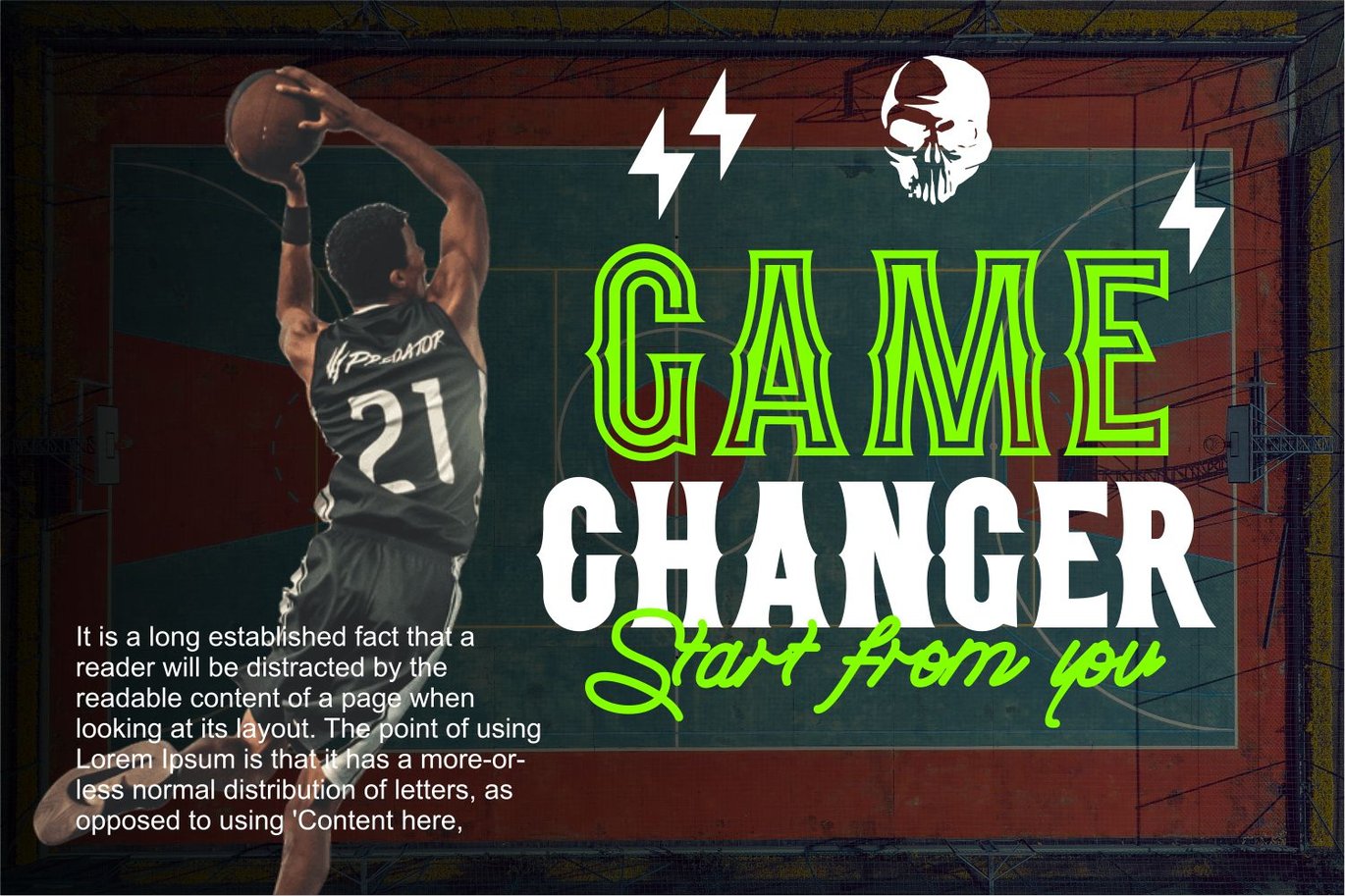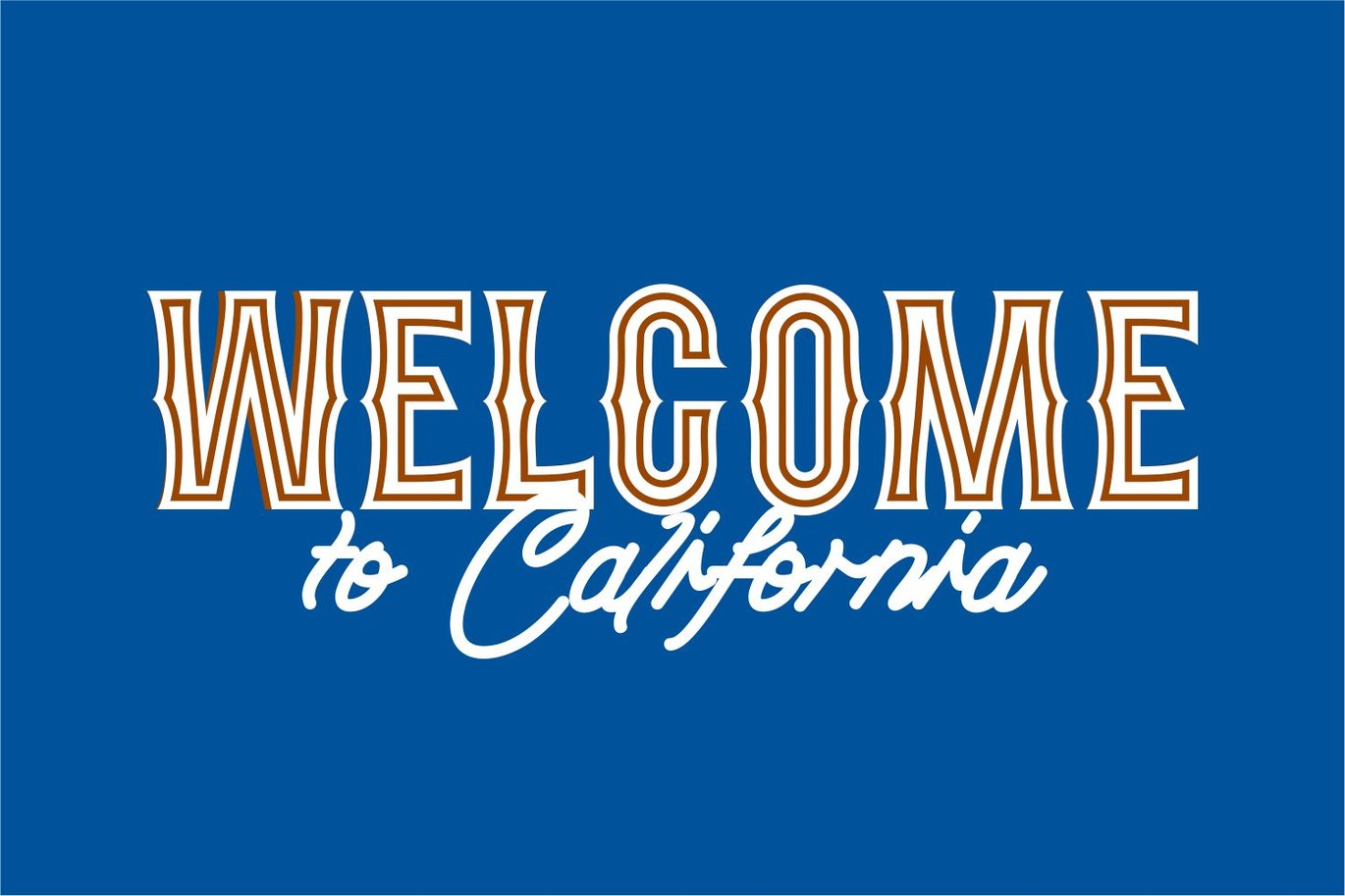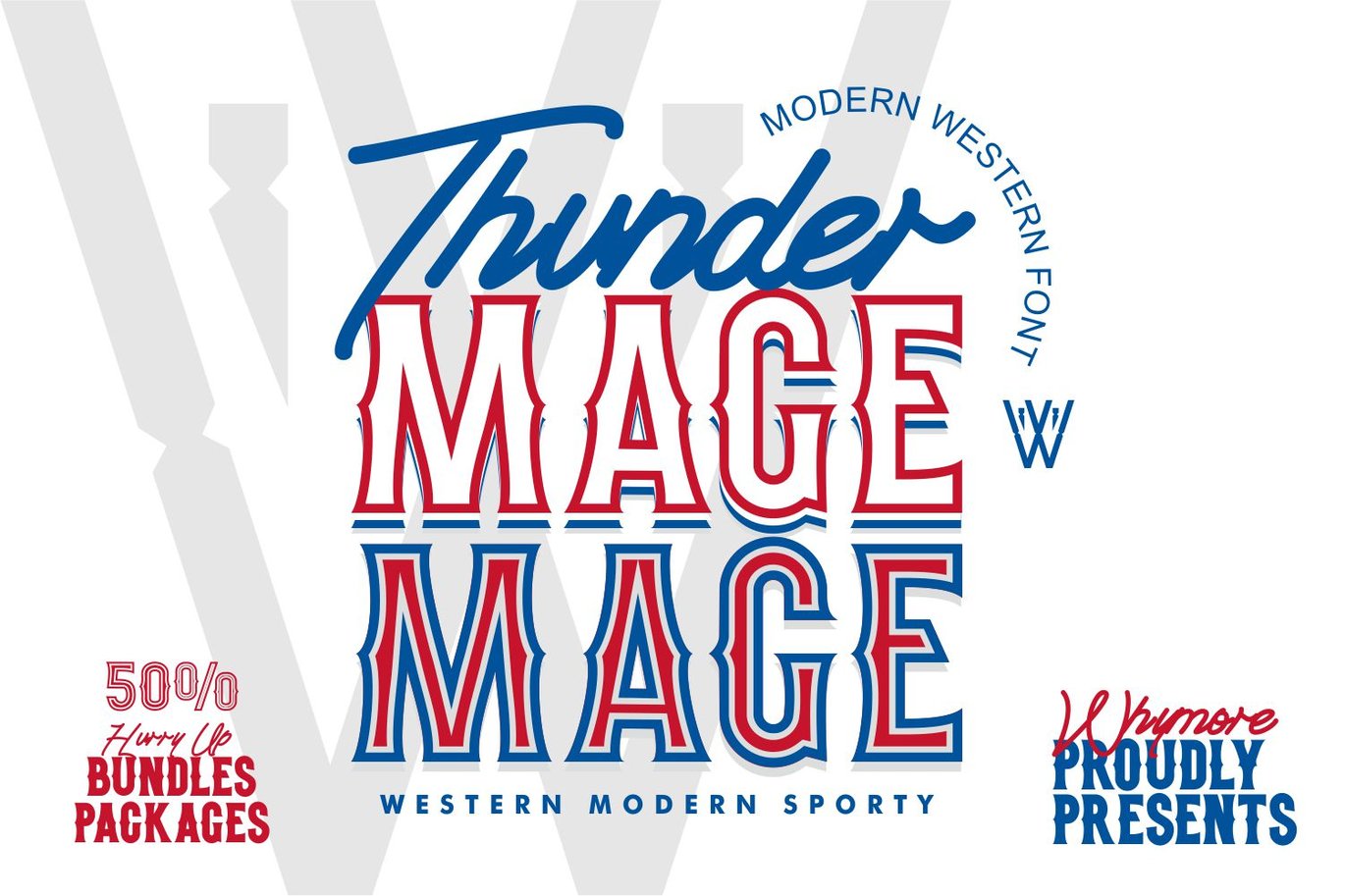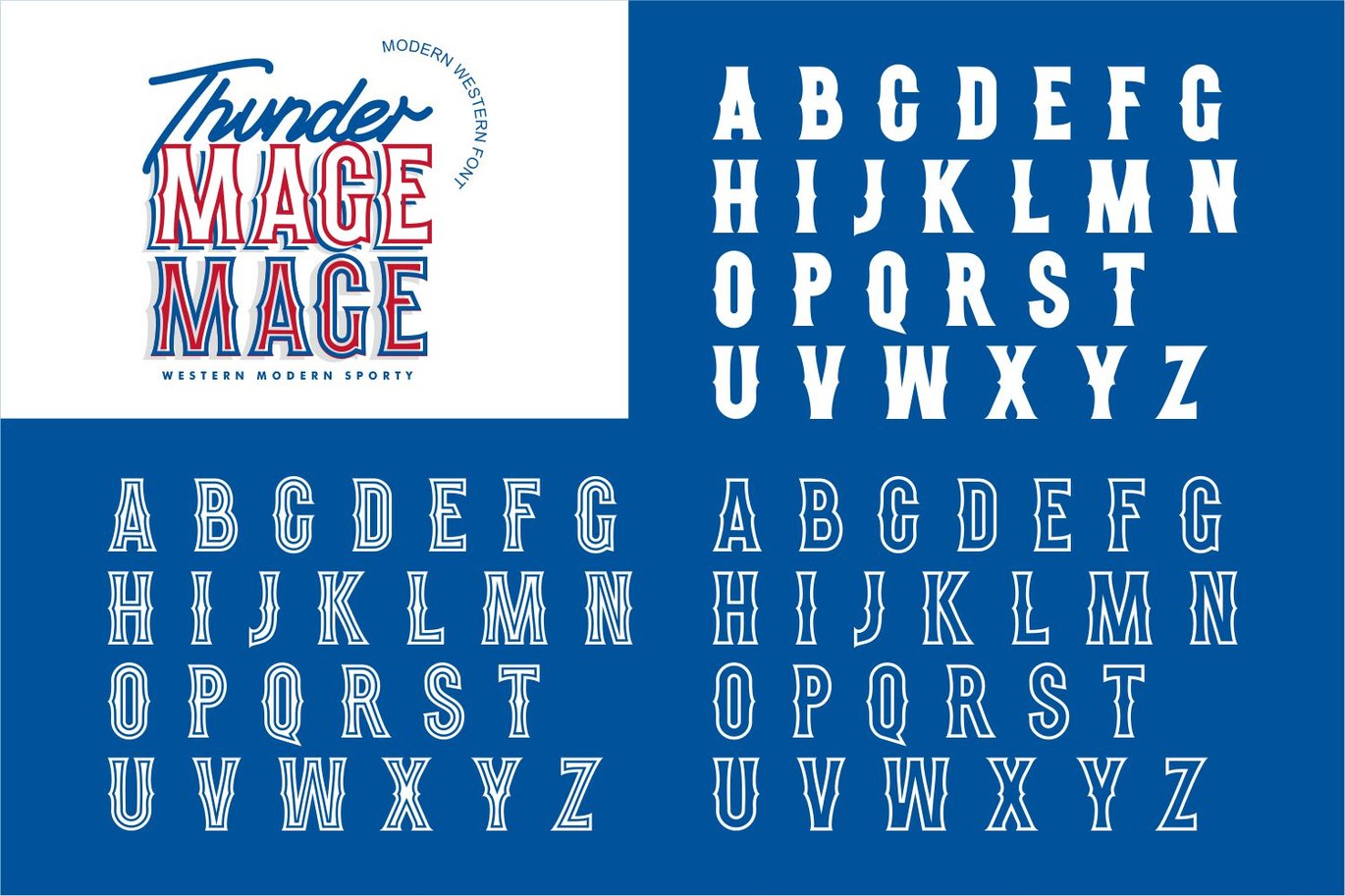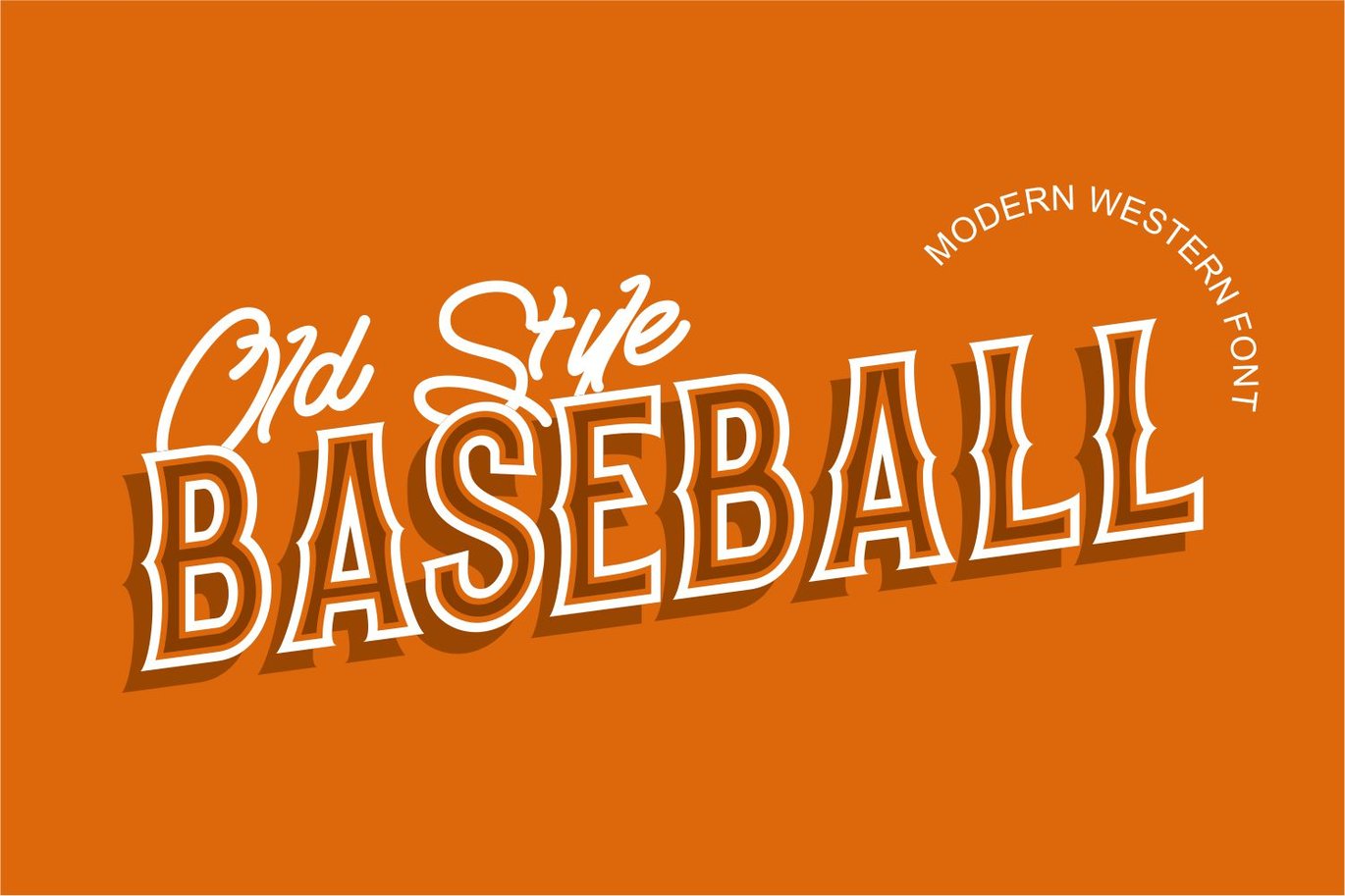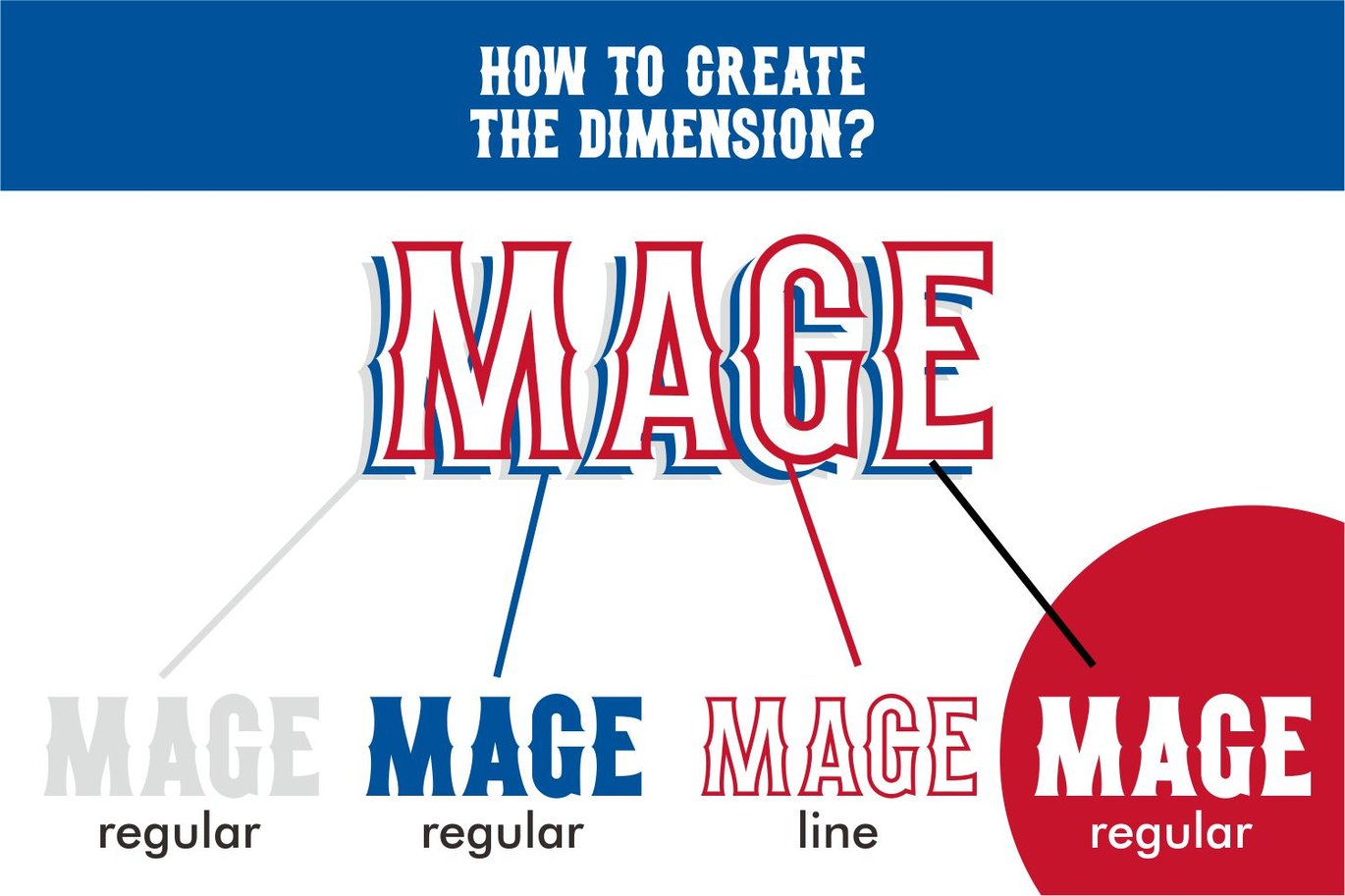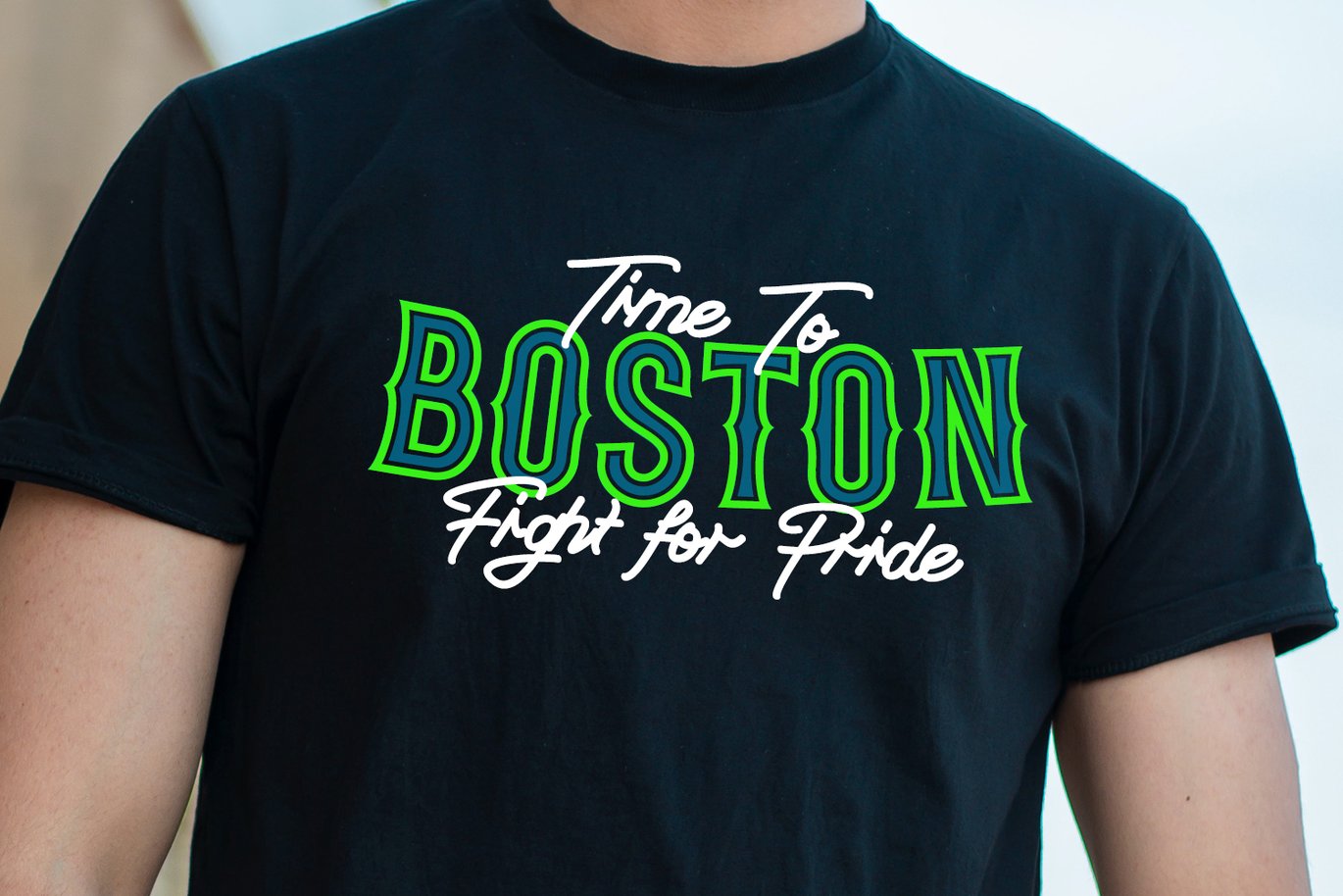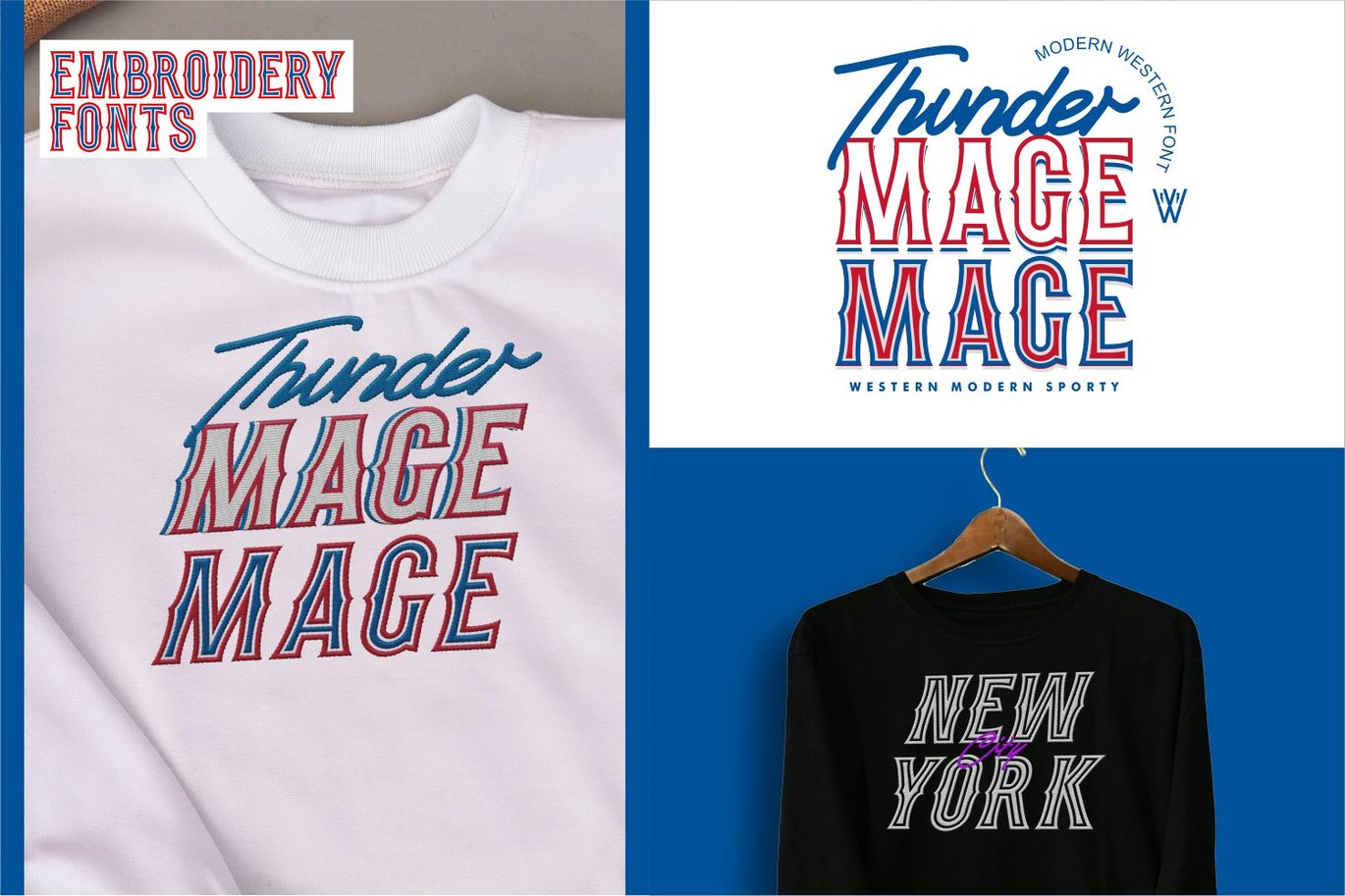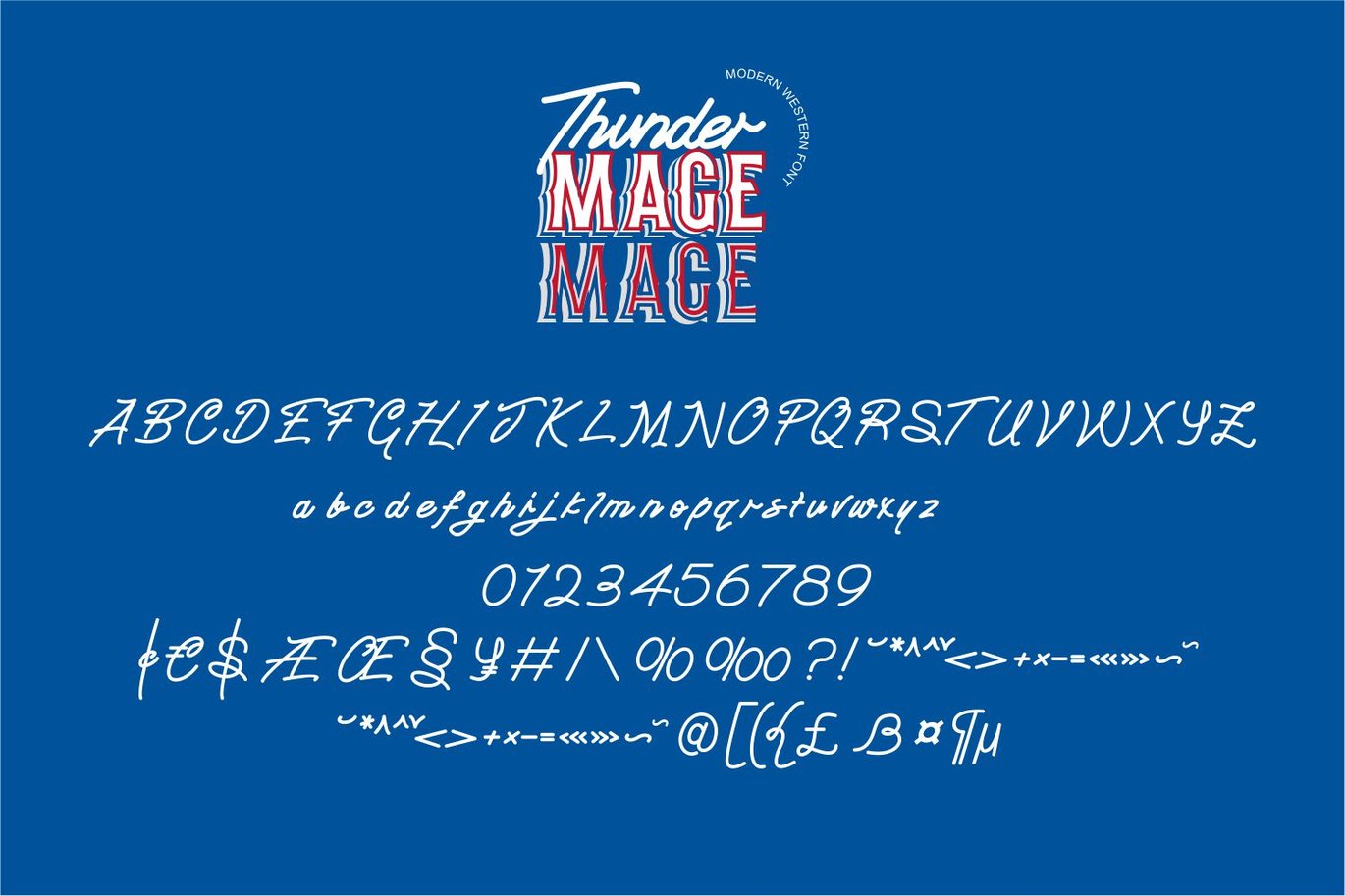
Thunder Mage | Sport Font
Let me introduce a Retro, Western, Bundle font by THUNDER MAGE font.
This font is Brave, Strong, Thick and have many variation.
This font is inspired by Retro Design. Moto cycle club. and baseball club design, which has a brand identity, name, and selling power that can be remembered by those who see it.
suitable for logos, news headlines, magazines, or a movie title.